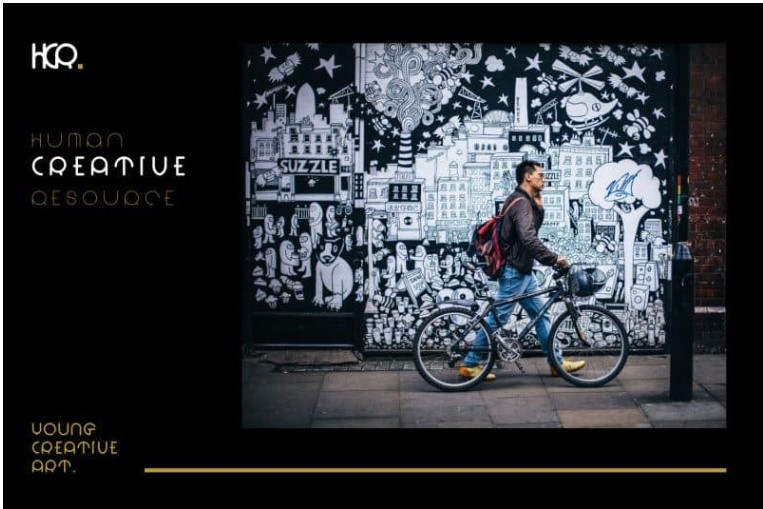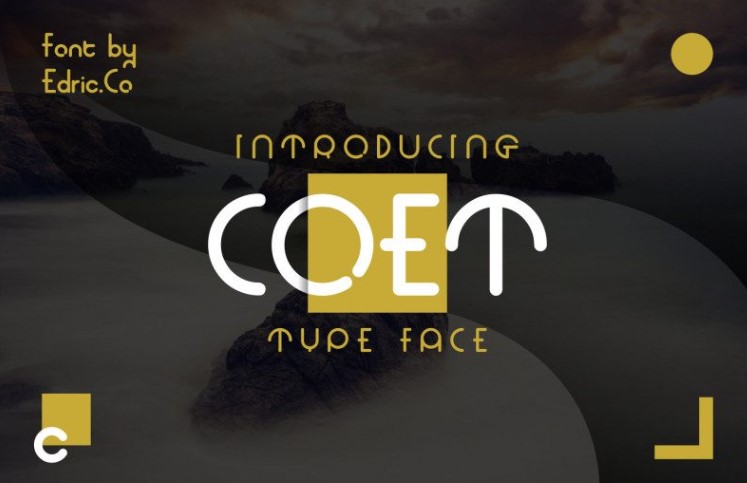
Coet Font
Coet Font is available here for free download in zip file format. This typeface is famous for its copy and paste function and also for its pairing function. It modified into commissioned the use of adobe fonts for its net font library, this furthermore strategies that the most effective’s style fashion dressmaker fonts are to be had free of fee. Every unique selfie font is a completely unique condensed font that skills an antique layout.
The font is likewise to be had in a couple of weight, and it‚Äôs awesome for designing emblems, badges, and labels. Coet Font Free The typeface moreover comes with alternate characters and in someone’s weight as well. In tall abbey sans font is one of the maximum particular fonts on our listing. Neon lighting everyday font is a format derived from numerous antique faces from the English layout making facility.
It not the maximum useful recollections of a slender unmarried form. Download The skinny and curved man or woman layout of this font makes it an excellent preference for steeply-priced logo emblems as properly. Properly-completed geometric designs optimized kerning top-notch net-font. It appears as pinnacle-notch in each length it’s far available.